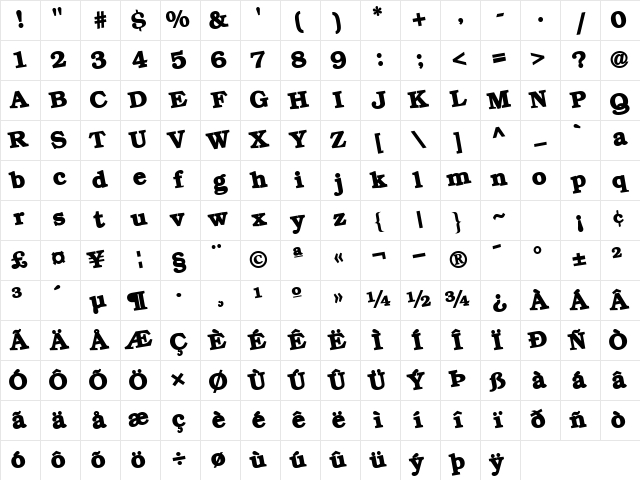
TypeOne9 Bold
TypeOne9 Family
Design Context for TypeOne9
TypeOne9 is a composed and adaptable typeface that performs quietly and consistently across a wide range of design contexts. Its bold stroke weight gives it real presence on the page.